01. Diadema
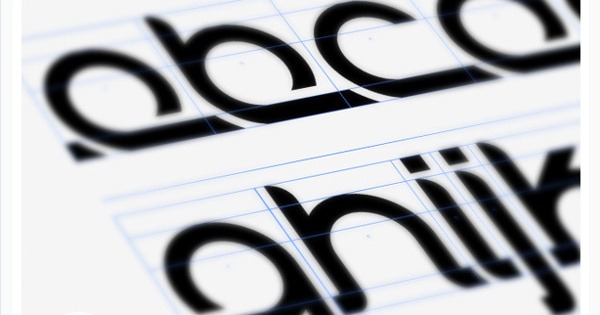
Diadema is a sans-serif font by Chrisworks Design. The font combines vintage elegance and simplicity with modern curves to create a unique font that can be used for a variety of different purposes, including simple logo designs and headings in articles. This font is available in TrueType TTF format.
02. MOAM Typeface
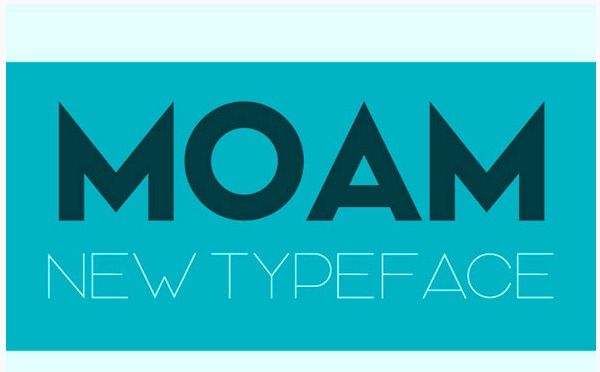
MOAM Typeface is a sans-serif font by Nawras Khrais. The font is simple yet bold, allowing you to create stunning logos without needing to get too crazy. This typeface comes in three different styles, the main style you see above, an engraved style and a slim style. It also comes with plenty of glyphs for you to use. Font files include TrueType TTF and OpenType OTF.
03. Oregon
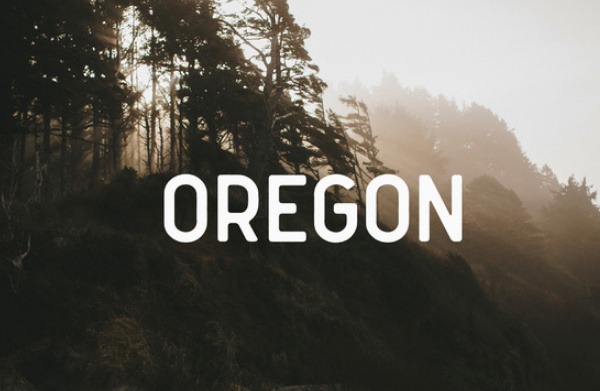
Oregon is a simple sans-serif font by Mark van Leeuwen. The font gains inspiration from vintage designs and uses modern clean, minimalist styles to create a font that’s simple yet bold. It can be used for a variety of different purposes, including logos and headings in editorials.
04. Revelation
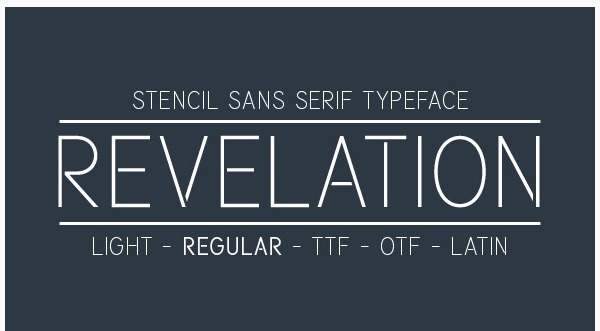
Revelation is a sans-serif, stencil-type font designed by Sunny Tudu. This font is simple, and it looks no different than any other all-uppercase, sans-serif font out there at first glance. However, you’ll find the stencil-style to be a creatively unique feature upon closer inspection as it gives the font that extra pizazz it needs to stand out from the crowd.
05. Suargie
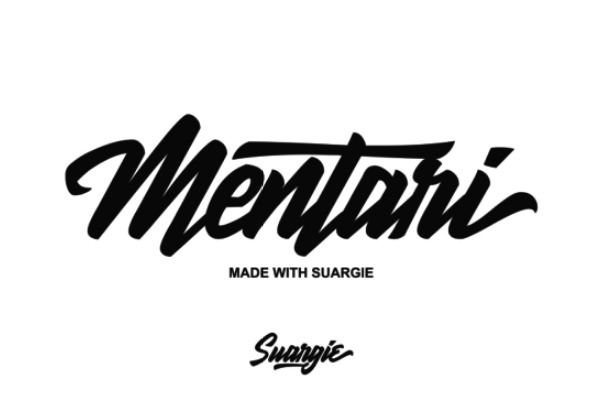
Suargie is a brush script font by Surotype. The font features a bold and elegant style, which inspired its name as “suargie” is Japanese for “Heaven.” Suargie is an ideal choice for logos, given its brush script appeal, and it even comes in a variety of different styles to give you plenty of opportunities to create a number of different designs with a single font.
06. Estilo Text Light SC
Estilo is a simple, minimalist font by Dino dos Santos of DSType. The font comes in 11 different styles and 2 packages. If you do not purchase a package, you must purchase each style individually. The font’s Text Light SC style is an ideal choice for sites and brands going for minimalist designs on their websites, branding and advertisements.
07. The Art Deco Bundle
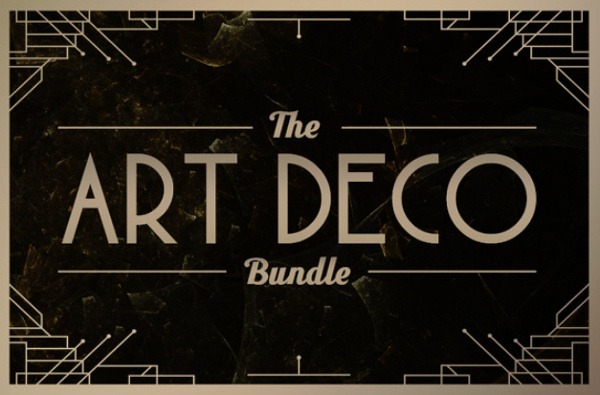
The Art Deco Bundle is a bundle of 4 typeface sets and 3 badge sets by Tugcu Design Co. The typefaces and badges available in this bundle can be combined to create a variety of different logo designs that have vintage styles mixed with modern minimalist tones. The designer has chosen which styles to feature in this bundle carefully, ensuring each style matches the other, though you can purchase each of these sets individually as well.
08. FF Cocon Regular
This font was designed by Evert Bloemsma of FontFont. It comes in 18 different styles, but you’ll need to purchase each one separately for $55 or buy the entire family for a one-time fee. The designer recommends using the font for anything that requires branding, whether it be logos on advertising and packaging or within editorial platforms.
09. Sugar Pie
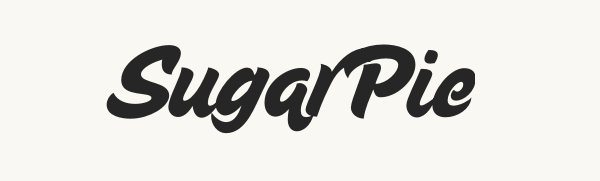
Sugar Pie is a script font by Sudtipos. The font draws inspiration from the designer’s Candy Script script font. It uses round-to-sharp concepts, which the designer says “echoes the concept of the clean brush scripts found in the different film type processes of the late 1960s and early 1970s.” Overall, the font has a striking appearance that catches the eye while managing to remain simple.
10. Intro Rust Font Pack
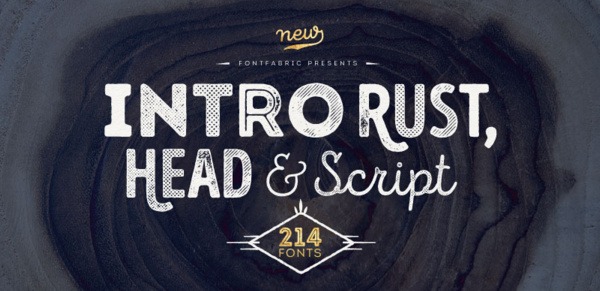
The Intro Rust font pack offers a simple way to create stunning logos. You can purchase styles individually, but the purpose of this font, as demonstrated in the image above, is to combine one style with another to create contrast in an elegant manner. This includes combining the font’s letterpress and script styles.